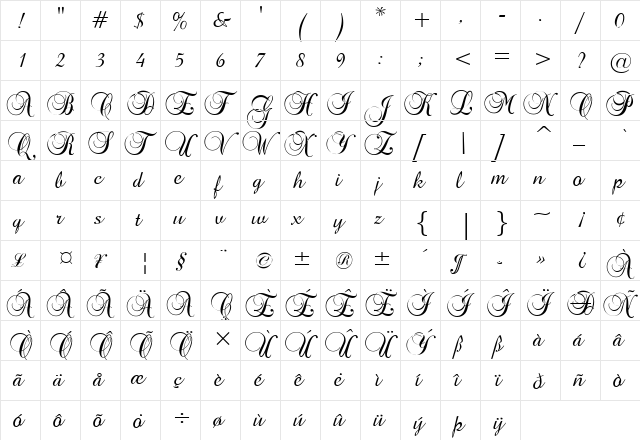
Brock Script Regular
Design Context for Brock Script Typeface
Brock Script flows with the natural rhythm of handwritten lettering, making it ideal for designs that call for warmth and personal expression.
Font Pairing: Combine Brock Script with a simple geometric sans for maximum contrast — the tension between flowing curves and clean structure is a classic typographic pairing.
Pro Tip: Pair Brock Script with a clean sans-serif for supporting text. The contrast between fluid script and geometric structure creates an elegant typographic hierarchy.